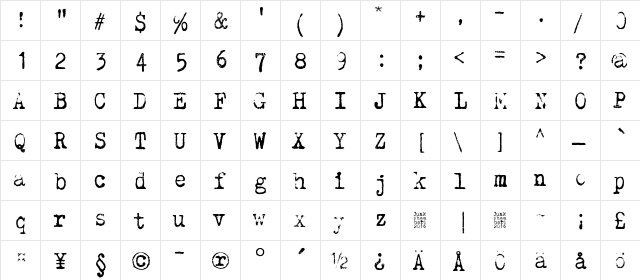
Why do we blink so frequently? Regular Font Preview
Why do we blink so frequently? Regular
Design Context for Why do we blink so frequently? Typeface
Why do we blink so frequently? is a composed and adaptable typeface that performs quietly and consistently across a wide range of design contexts.